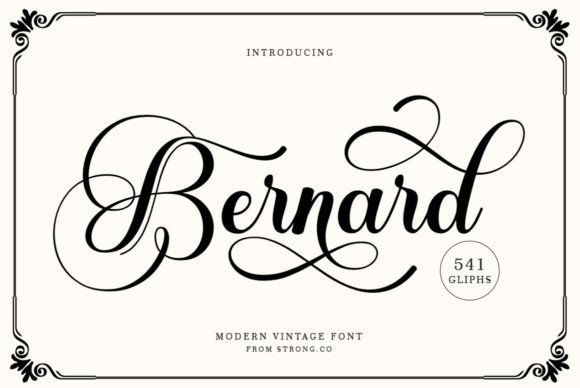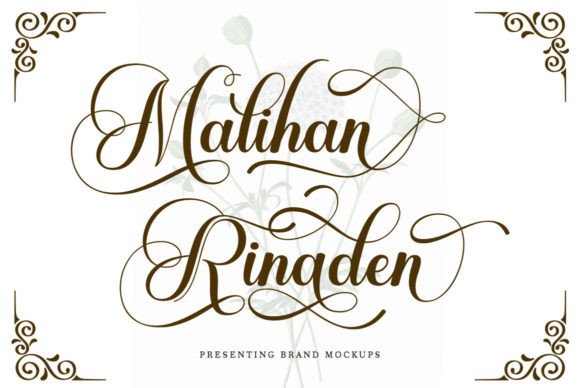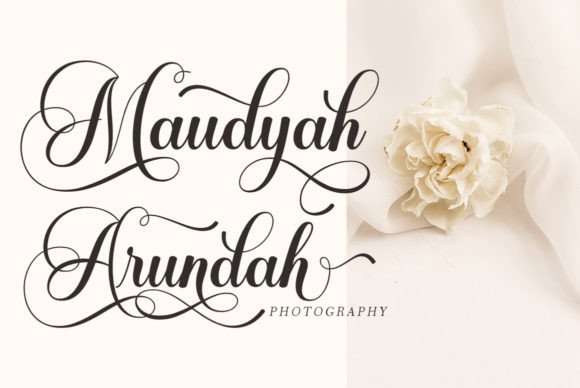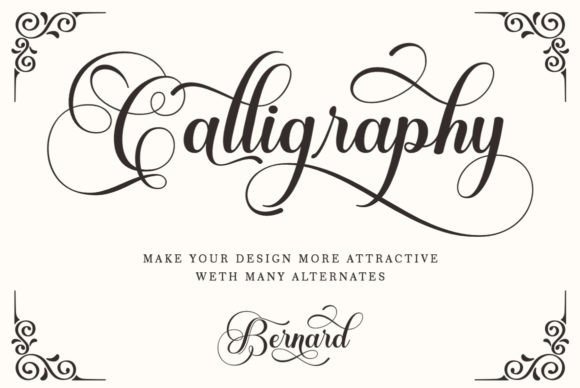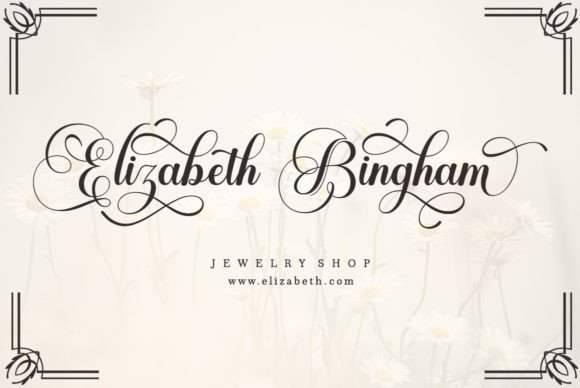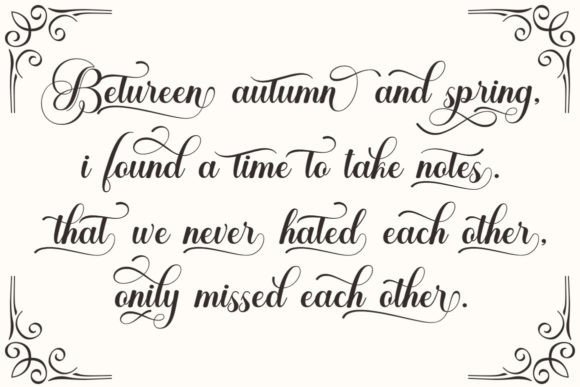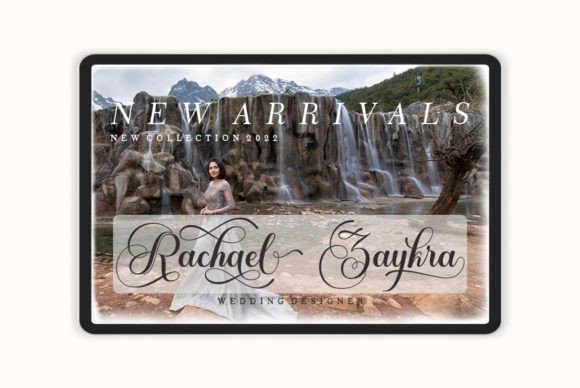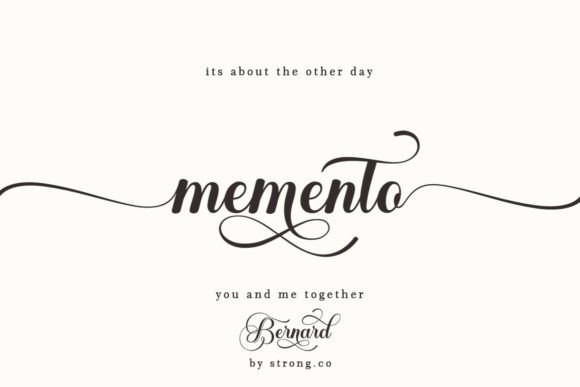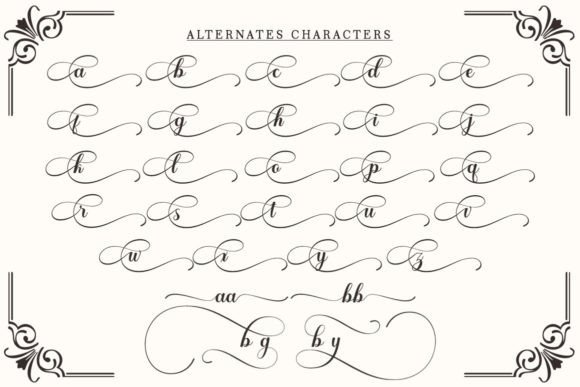
Bernard Font
About Bernard Font
Bernard, with its dazzling and gorgeous script, emerges as a font that captivates with a subtle vintage vibe and a luxurious character. This typeface is a versatile choice, suitable for a wide range of design ideas, from classic and timeless to contemporary and stylish.
The font’s elegance is immediately apparent, making it a great fit for projects that demand sophistication. The careful crafting of each letter and the seamless flow of the script contribute to the overall luxurious feel. Whether used for logos, branding, wedding invitations, product packaging, or any other creative endeavor, Bernard has the potential to elevate the design to new heights.
The subtle vintage vibe adds a touch of nostalgia, making Bernard a unique choice for projects that aim to blend classic aesthetics with modern design sensibilities. This dual quality makes it suitable for a variety of applications, where the goal is to create designs that are both visually appealing and timeless.
The attention to detail in the design of Bernard ensures that each glyph is meticulously crafted. The result is a font that not only serves as a practical tool for conveying text but also as a work of art in itself. The combination of curves, flourishes, and the overall balance of the script showcases the craftsmanship that goes into creating a font with such aesthetic appeal.
Whether used for formal occasions, such as wedding invitations and high-end events, or for more casual applications like product packaging and social media posts, Bernard remains versatile and adaptable. Its ability to seamlessly integrate into different design contexts is a testament to its design flexibility.
As a script font, Bernard brings a sense of personalization to any project. It captures the essence of handwritten elegance while maintaining a polished and professional appearance. The result is a font that resonates with those seeking a harmonious blend of classic and contemporary design elements.
In conclusion, Bernard stands out as more than just a font; it’s a design statement. Its dazzling and gorgeous script, coupled with a subtle vintage vibe and a touch of luxury, makes it a valuable asset for designers looking to create visually striking and memorable designs. Whether used sparingly for highlights or prominently as a focal point, Bernard is poised to make a lasting impression.